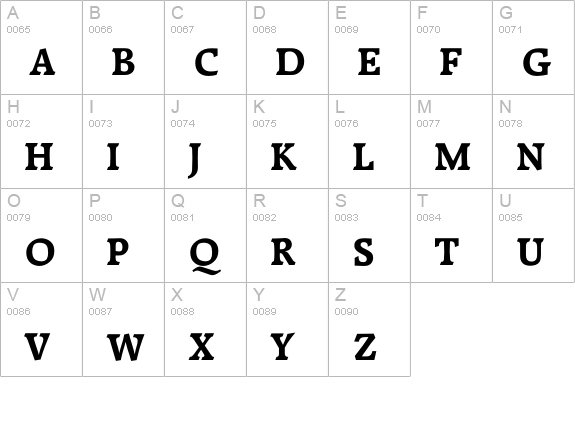
RaleighEF-DemiBold is a sub-bold, structured variant in the RaleighEF typeface family \xE2\x80\x94 well suited to sub-headlines and emphasised passages.
RaleighEF-DemiBold is a stunning and versatile font that exudes confidence and sophistication. Its bold and powerful letterforms make a strong visual impact, making it perfect for headlines, logos, and other attention-grabbing designs. This font embodies the perfect balance between elegance and strength, with its sturdy construction and refined details. Each letter is meticulously crafted to ensure legibility and readability, even at small sizes. The thick strokes and sharp angles give RaleighEF-DemiBold a modern and contemporary feel, while the subtle curves and smooth connections add a touch of refinement. Whether you're designing for print or digital media, RaleighEF-DemiBold will make your text stand out with its commanding presence. It effortlessly captures attention and commands authority, making it an ideal choice for branding projects, advertising campaigns, and editorial layouts. What makes RaleighEF-DemiBold even more appealing is that it is freely available to download at FontsMarket.com. This means that you can access this exceptional font without any cost, making it an excellent choice for designers on a budget or those who simply appreciate quality fonts without the hefty price tag. So why wait? Discover the power and elegance of RaleighEF-DemiBold today and elevate your designs to new heights. Download it for free at FontsMarket.com and unleash your creativity with this remarkable typeface.